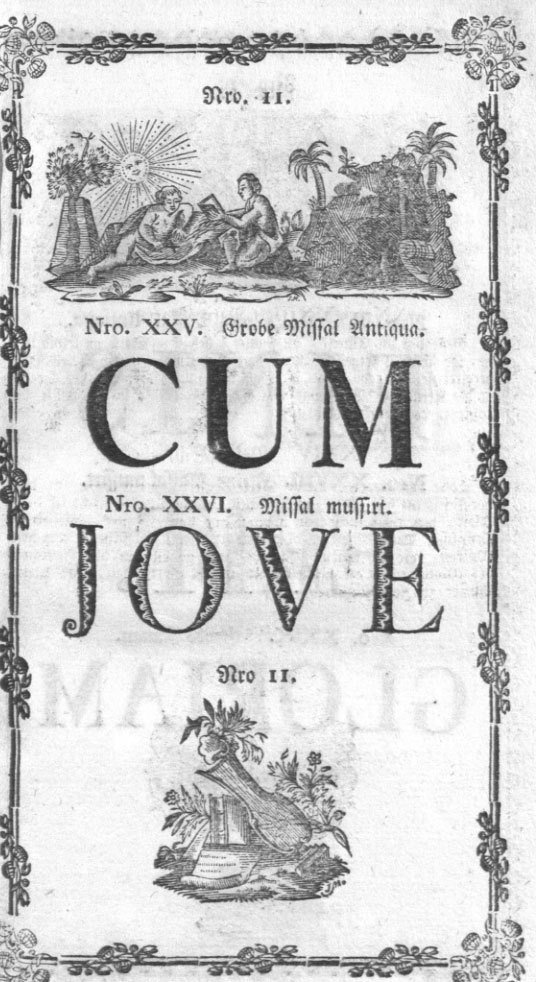
Type Specimens Online
I am starting a list of scanned type specimens online. You are free to add more links.
Flickr Type Specimen Group
William Caslon – A specimen of printing types (1785)
Caslon: A specimen of cast ornaments (1798)
Franklin type foundry, Cincinnati – Convenient book of specimens (1889)
Barnhart bros. & Spindler, Chicago – Book of type specimens (1881)
Keystone Type Foundry, Philadelphia – Abridged specimen book (1906)
Cleveland Type Foundry – Catalogue and book of specimens of type faces (1895)
Palmer & Rey, San Francisco – New specimen book (1884)
American Type Founders Company – American specimen book of type styles (1912)
Lanston Monotype Machine Company – The monotype specimen book of type faces (1922)
Inland Type Foundry, St. Louis – Specimen book and catalog (1897)
MacKellar, Smiths & Jordan Co, Philadelphia – Specimens of printing types (1892)
Selections from the specimen book of the Fann Street Foundry (1874)
Fifteenth book of specimens from the Cincinnati Type Foundry (1882)
Condensed Specimen Book from the Boston Type Foundry (1860)
Specimen of printing types from the foundery of Binney & Ronaldson, Philadelphia (1812)
Book of type specimens by Barnhart bros. & Spindler in Chicago (1907)
What I would most welcome would be online copies of European metal foundries, especially after 1900. There isn't much available that I have been able to find.
We are happy to announce the release of the first complete electronic issue of the seminal 1923 edition of the American Type Founders (atf) Specimen Book. Considered by many to be the culmination of specimen printing, it is an important, and massive, volume which has been unavailable until now.
At the end of the 18th century, the German printer J.F. Unger tried to create a new typeface that would bridge the traditional German blackletter designs with the Roman typefaces which briefly became more popular at that time in Germany. This is a specimen book (named “Probe einer neuen Art Deutscher Lettern”, 1793) he published to show and discuss this new design.